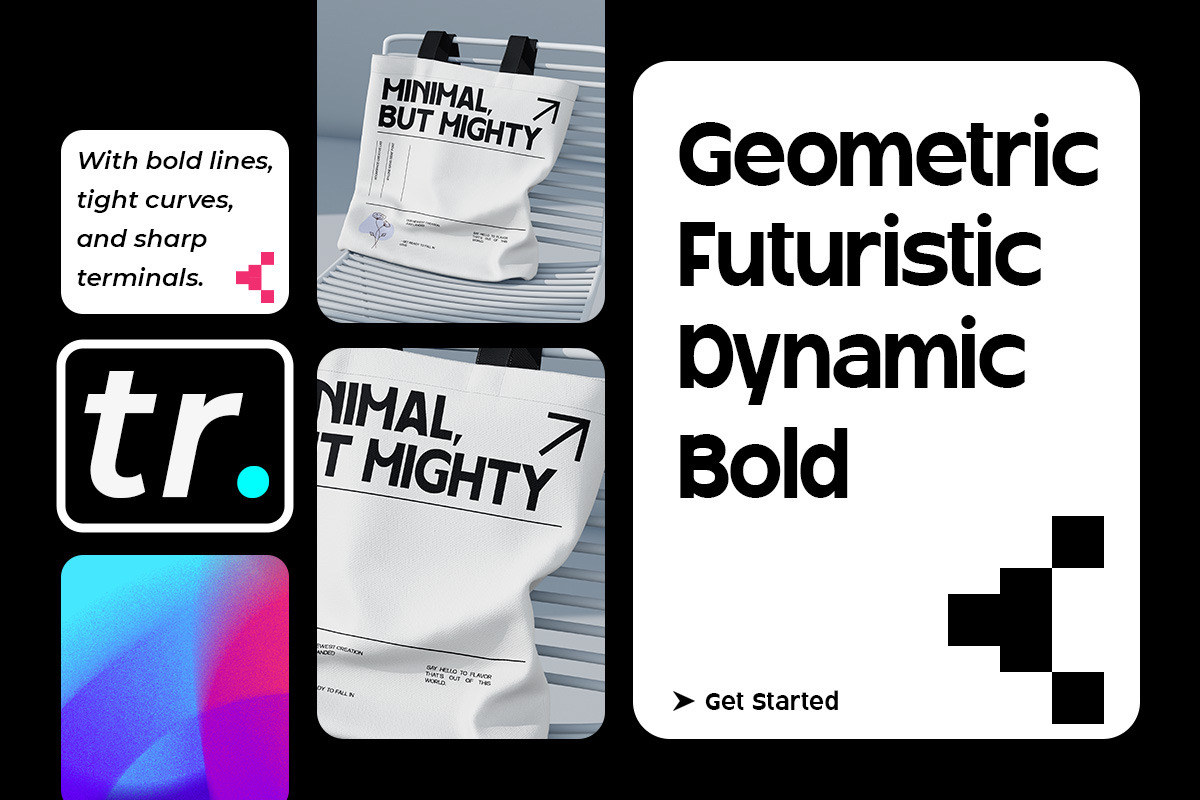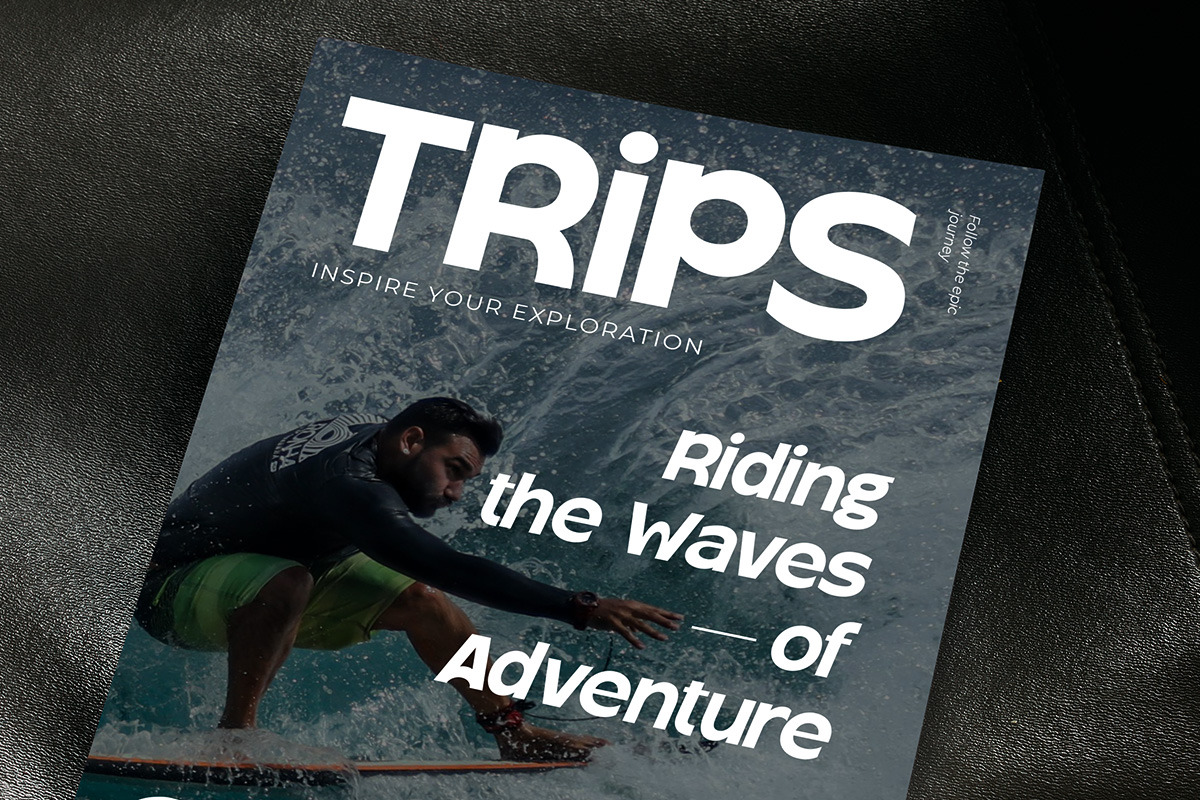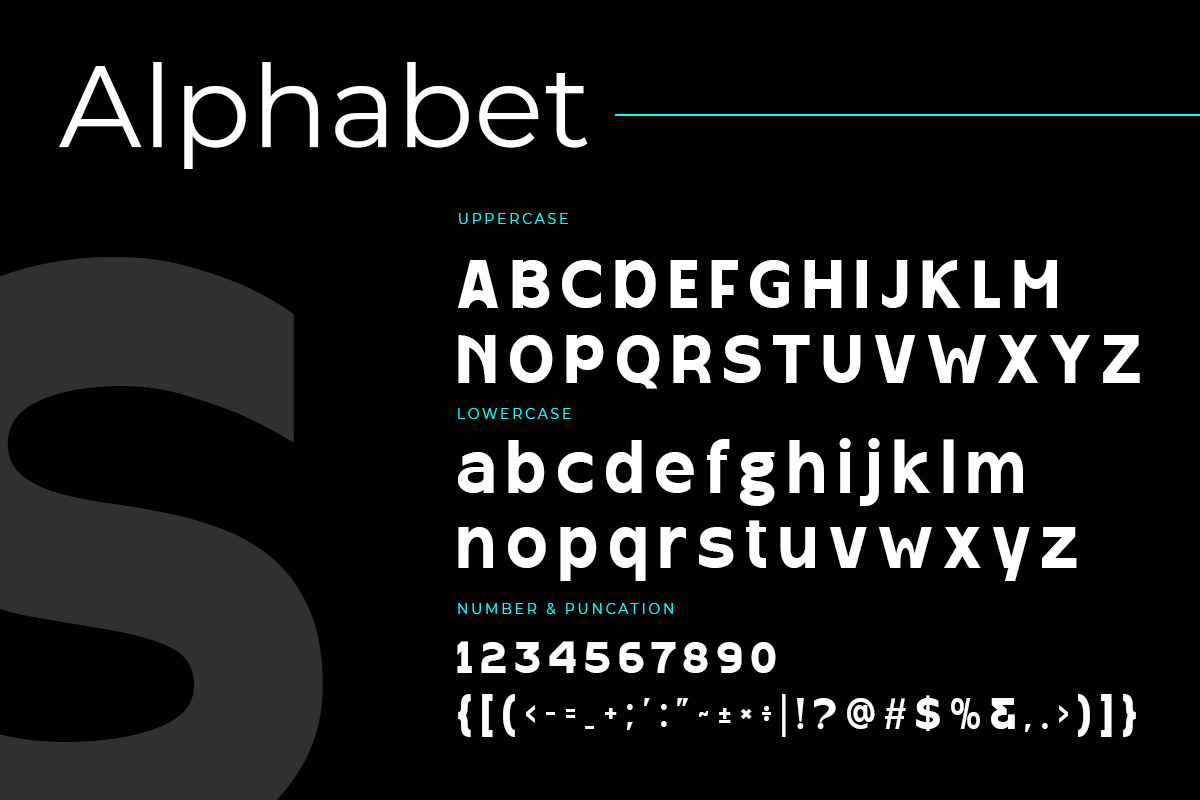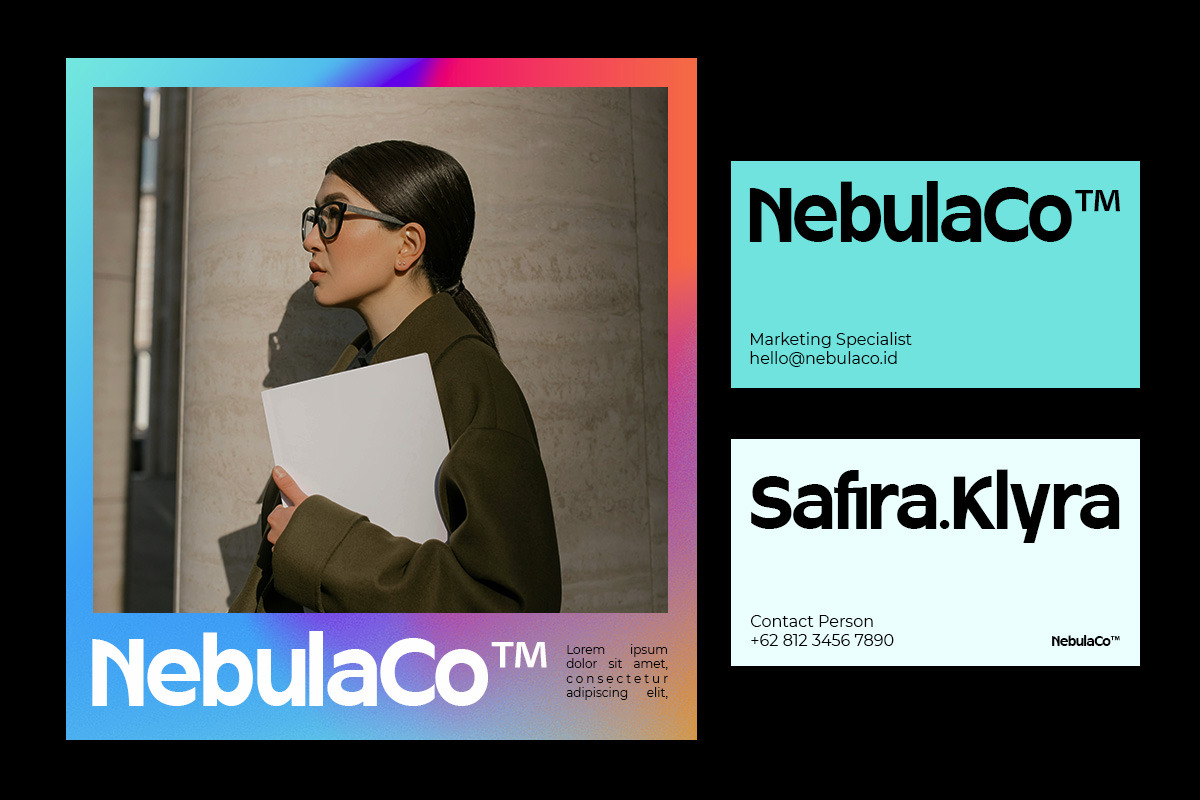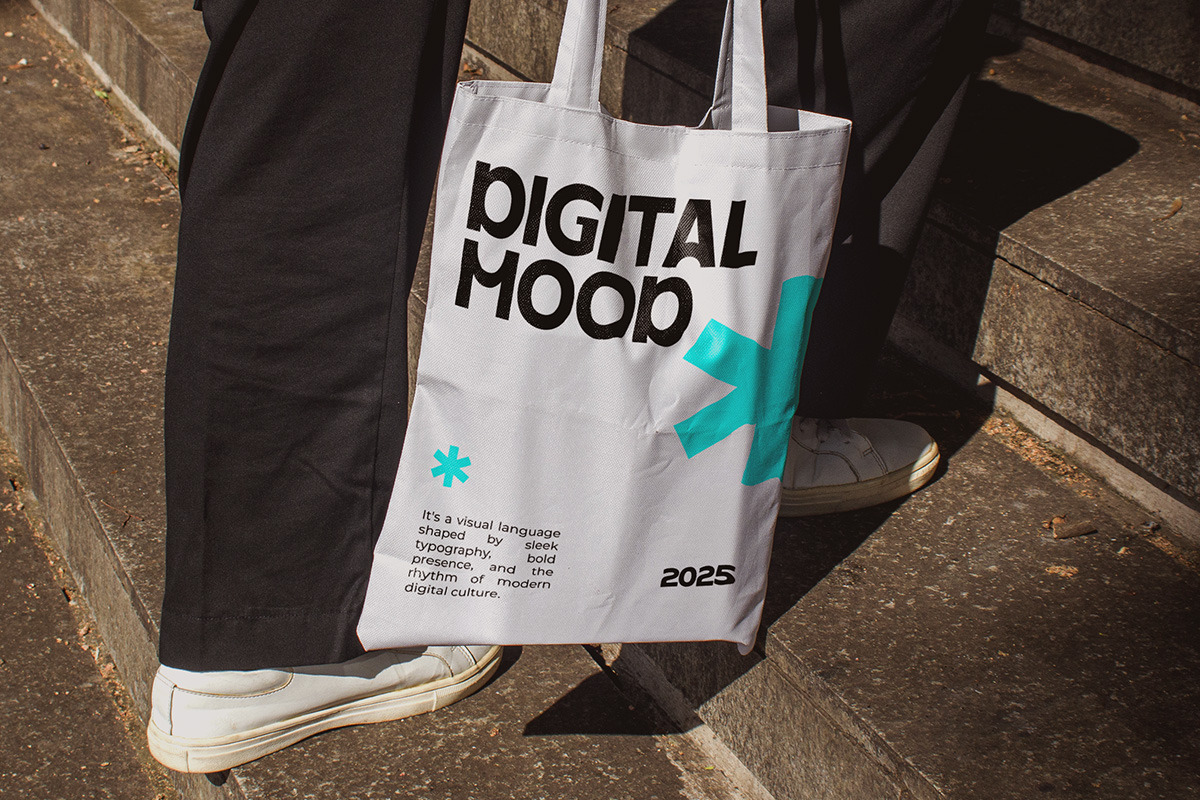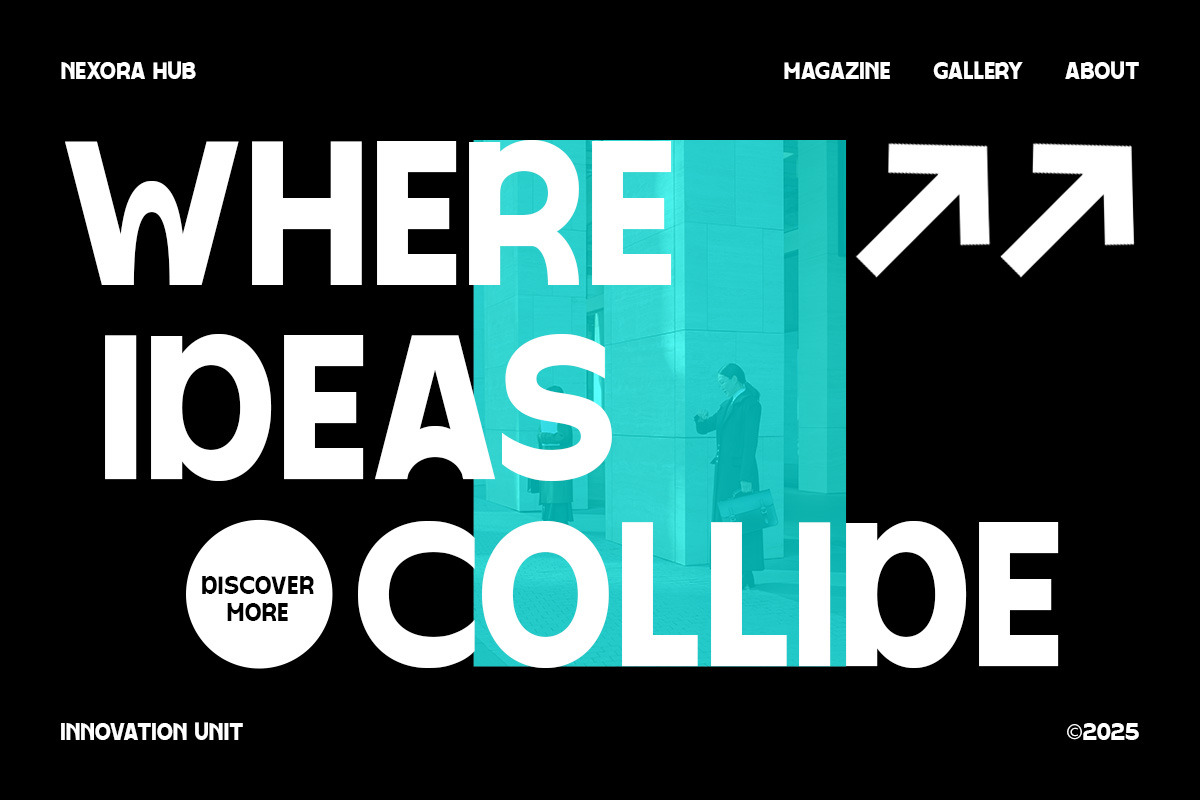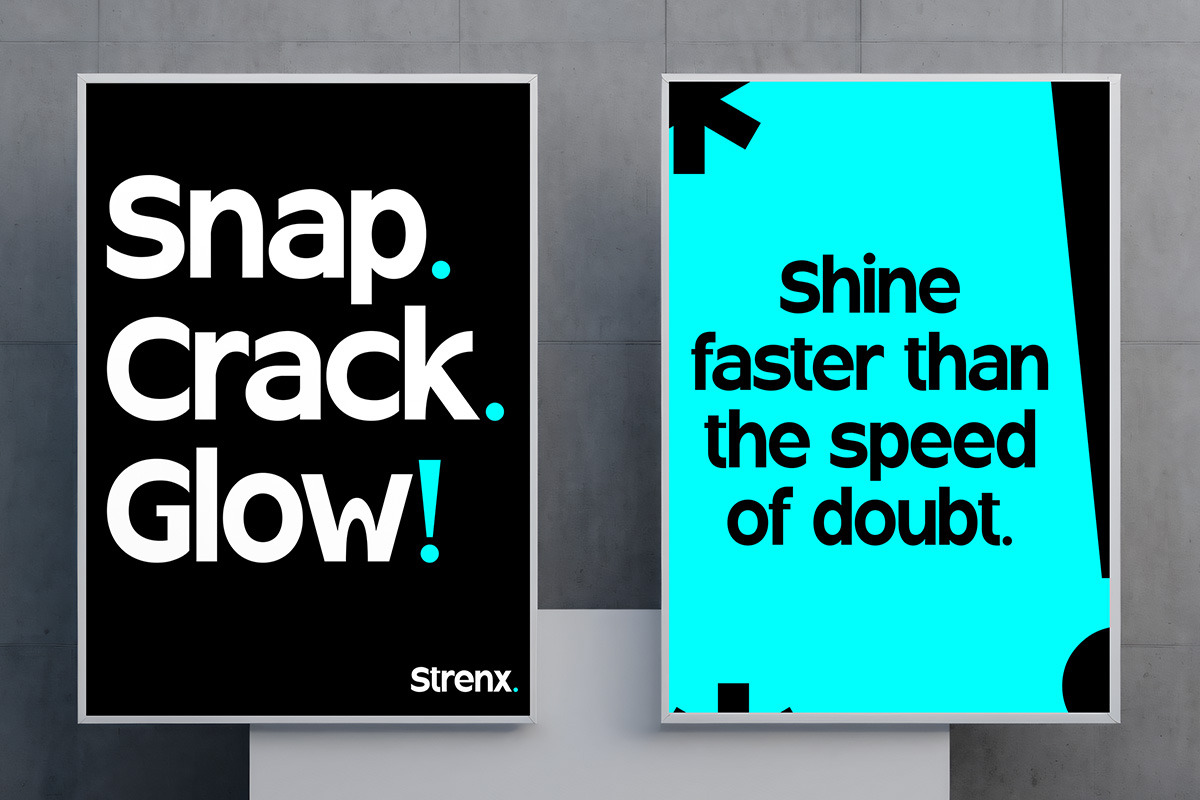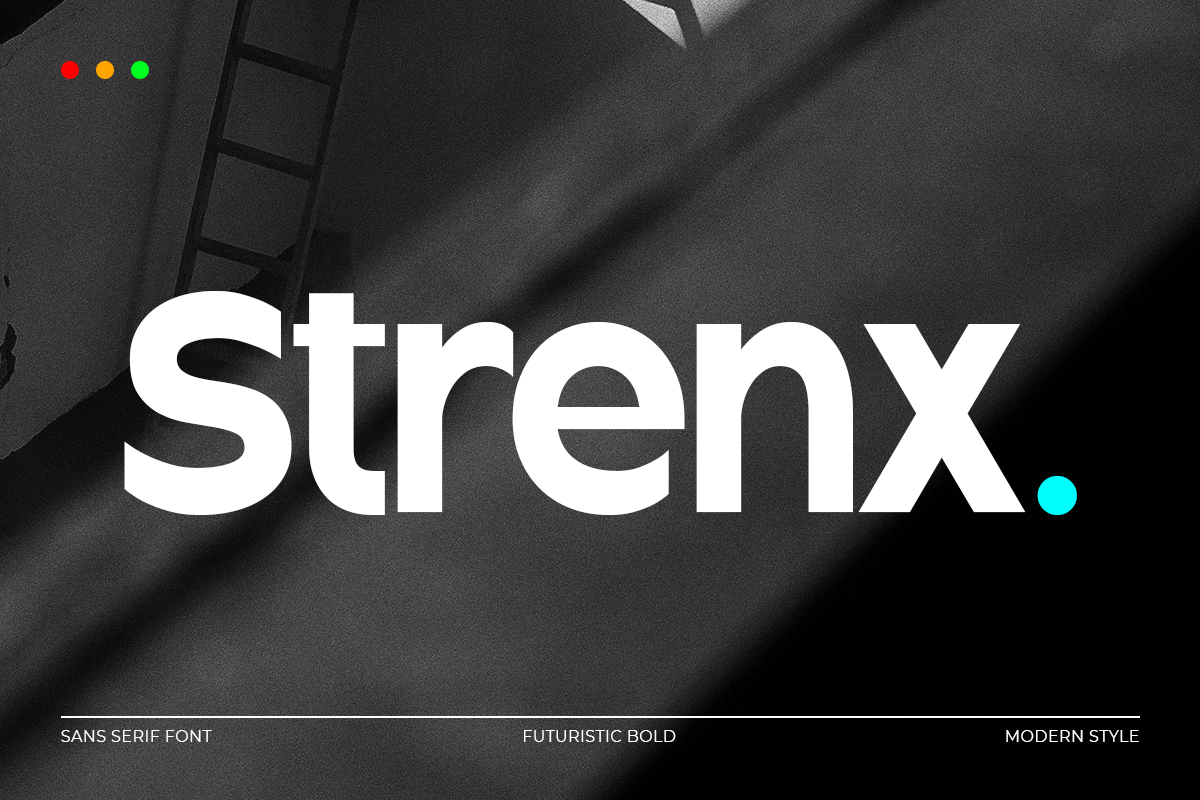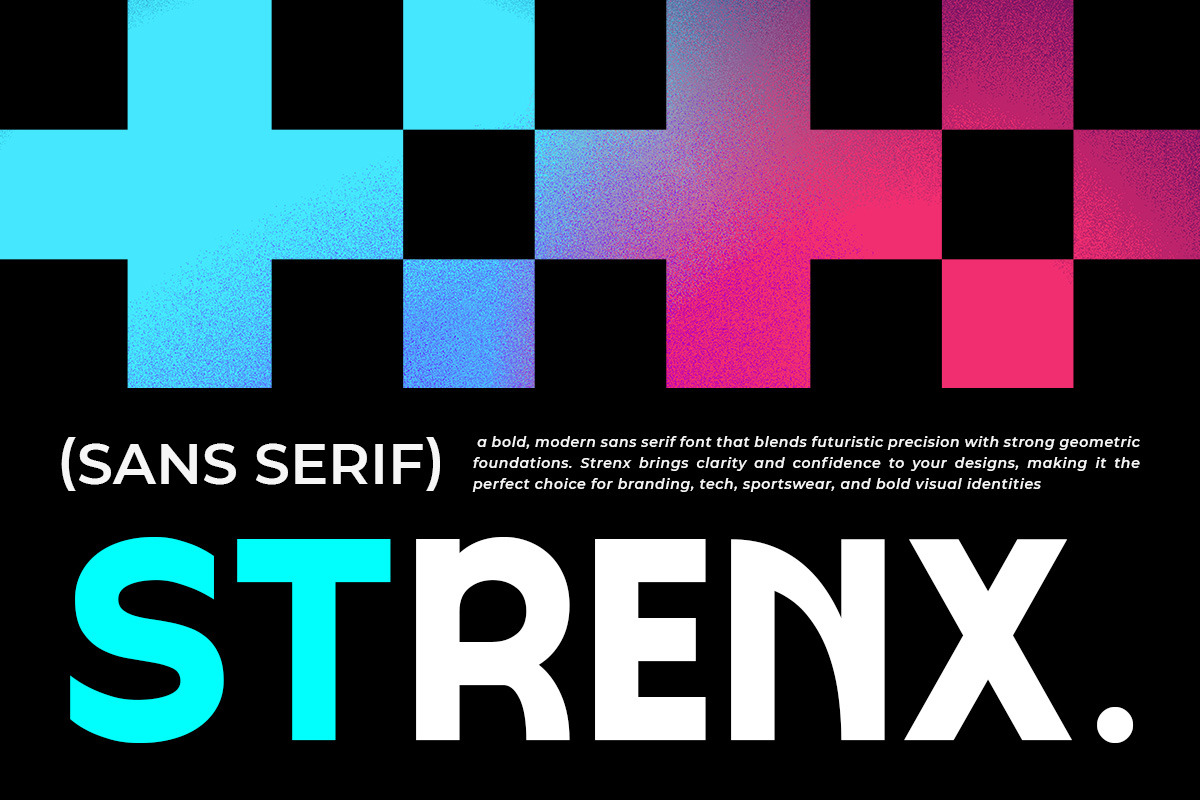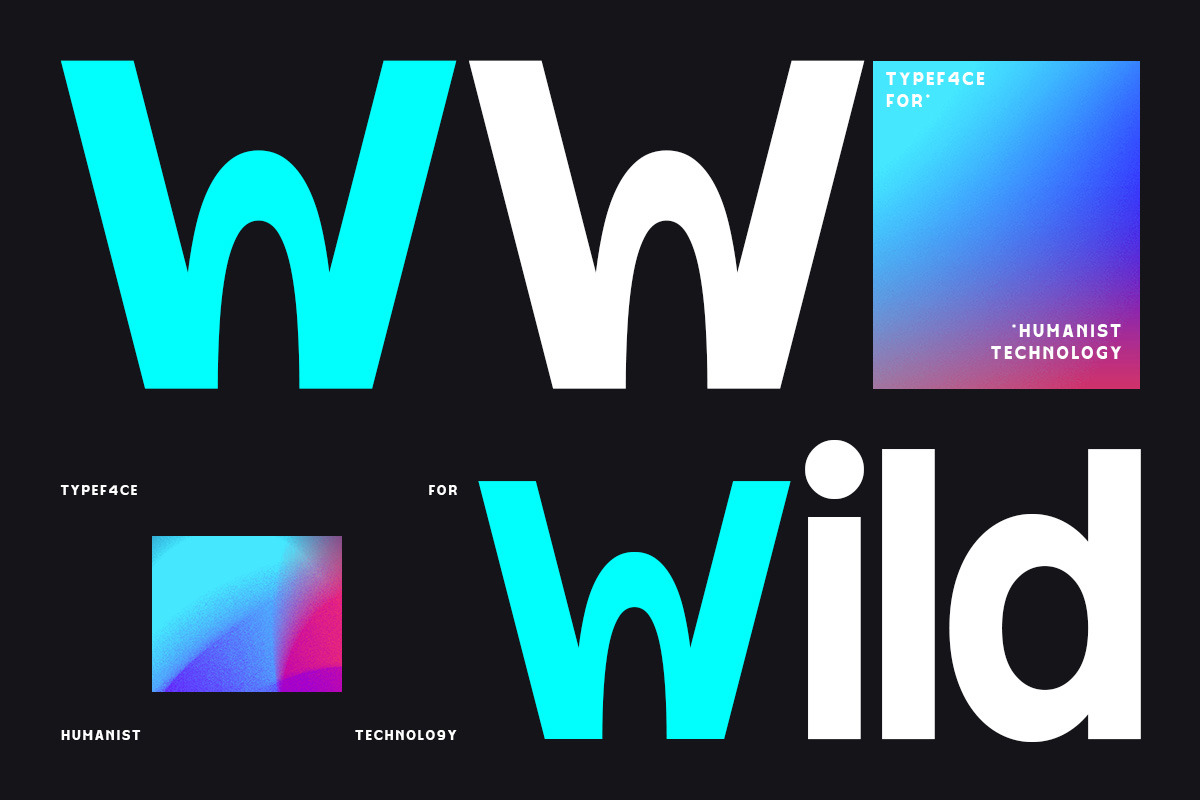
Strenx - Modern Futuristic Font
Strenx is a bold and modern sans serif font that brings a strong, futuristic vibe to your designs. With its clean lines, balanced shapes, and confident style, Strenx is perfect for logos, branding, posters, and web design. This typeface is designed to make a statement—whether you're working on tech projects, creative branding, or bold headlines